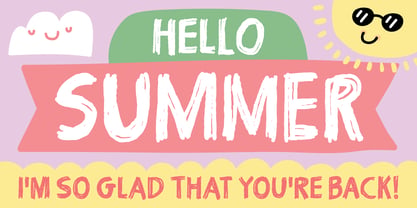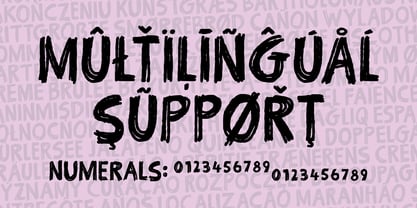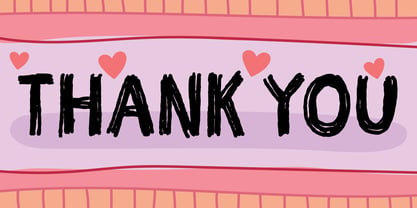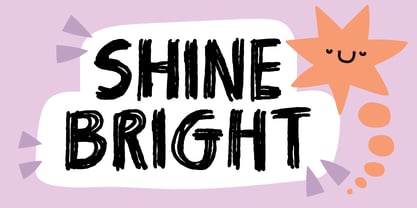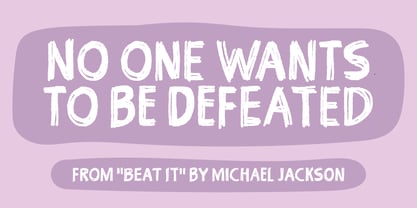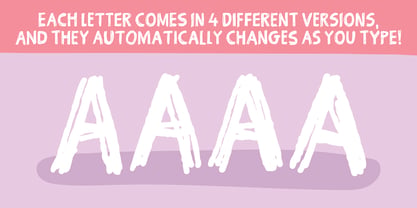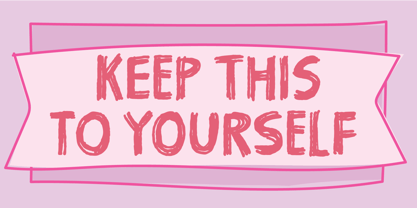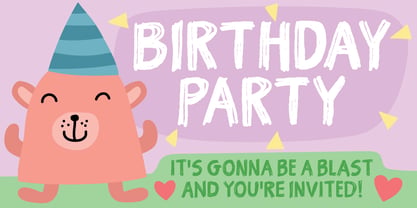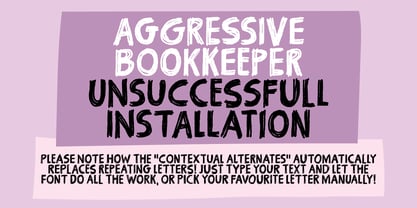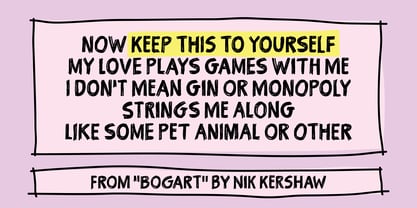
Keep This To Yourself
The Keep This To Yourself Font Family was designed by Jakob Fischer and published by PizzaDude.dk. Keep This To Yourself contains 2 styles and family package options. More about this family
“Keep This To Yourself” is my bold, hand-drawn font with personality that feels both playful and confidently expressive. We’re talking organic looking, slightly irregular and rough lines that giving it a vivid touch—as if it were sketched with a thick marker in a burst of creative energy. The strokes are chunky and imperfect in a deliberate way, adding warmth and authenticity while maintaining strong legibility